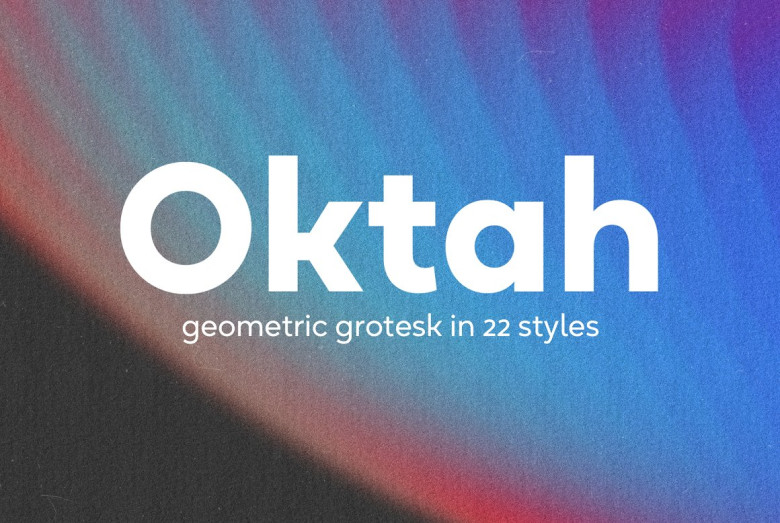
Oktah Font
Oktah is an elegant geometric grotte sans serif font family that provides 22 styles: 11 straights and 11 italics. Ideal for anyone seeking an adaptable font with high levels of readability, Oktah makes an excellent addition to any font family library. Oktah font stands out with its lovely appearance, graceful curves, and wide range of weights to offer something suitable for every typography need.
Beautiful geometric curves mingle with large apertures and bold strokes in this versatile font from Oktah – providing an excellent tool for typography to meet any challenge head on! Round letters typically feature a distinct circular form; to improve readability of these letters and allow optical compensation, slight modifications were implemented to modify their shape slightly and accommodate readability.
Oktah offers incredible OpenType features: punctuation that is case-sensitive as well as punctuation ligatures, fractions subscript and superscript figures two types of round figures style and contextual alternatives etc! Compatible with every major European language as well as Vietnamese if applicable in your design projects – We have you covered.